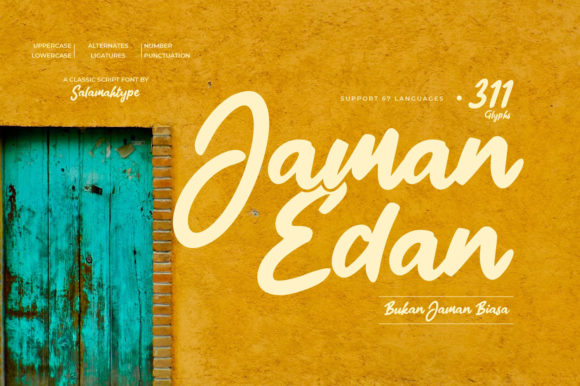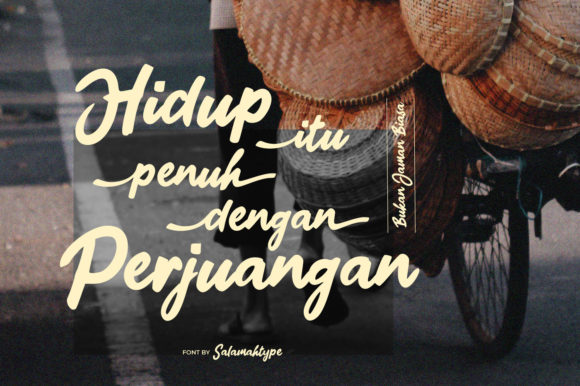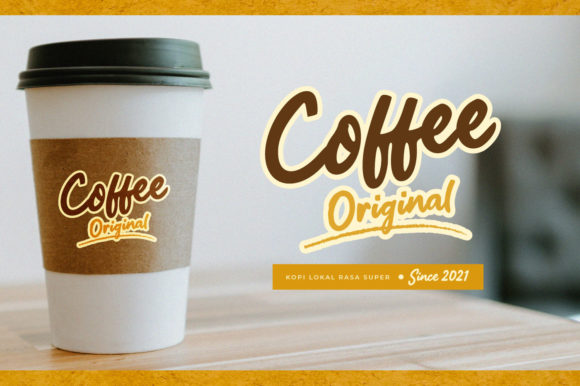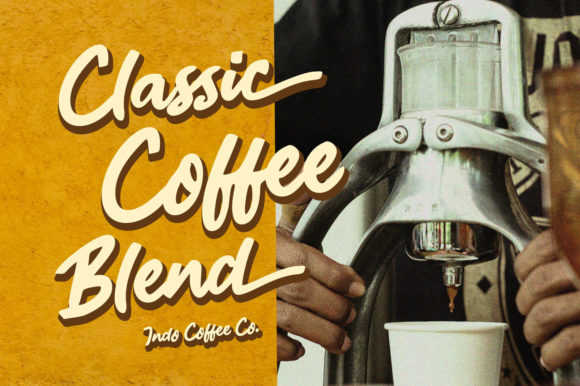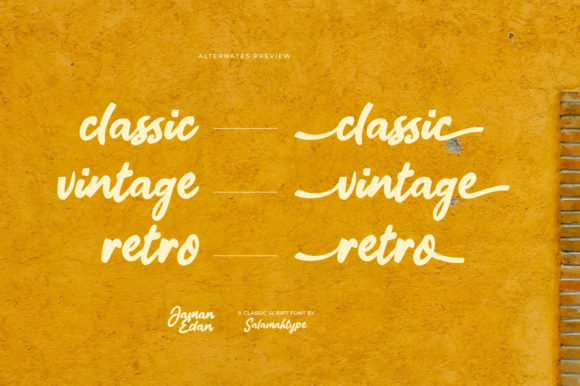
About Jaman Edan Script Font
Jaman Edan Script comes with a classic retro style, coupled with alternate characters.
It is suitable for product packaging, branding projects, logos, posters, advertisements, product designs, label, photography, social media posts and so much more. This font is PUA encoded which means you can access all of the glyphs and swashes with ease!